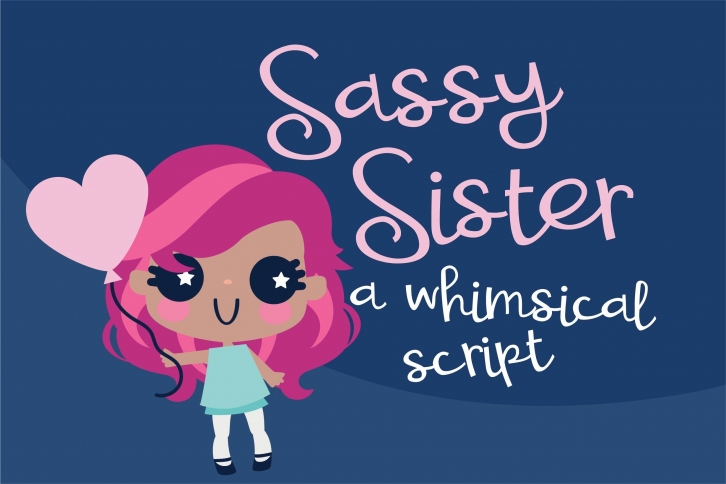
ZP Sassy Sister is a gorgeous font that was realeased on April 29, 2020. The font can be used in many style contexts and design environments. Perfect for invitations, magazines, websites, logos, and more! It was designed by Illustration Ink and the file size is 20.65 MB. Thanks for checking out this font!